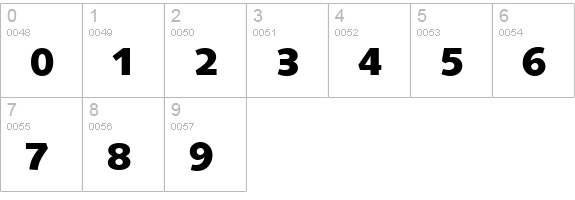
SaxonySerial-Xbold-Regular is the standard, neutral variant in the SaxonySerial typeface family \xE2\x80\x94 well suited to general body text, paragraphs, and standard typographic work.
SaxonySerial-Xbold-Regular is a bold and versatile font that exudes elegance and sophistication. With its clean lines and strong presence, this typeface is perfect for making a bold statement in any design project. Whether used for headlines, logos, or branding materials, SaxonySerial-Xbold-Regular commands attention and leaves a lasting impression. The best part? SaxonySerial-Xbold-Regular is available for free download at FontsMarket.com. This means that you can easily access and use this stunning font in your projects without any cost. Don't miss out on the opportunity to elevate your designs with the timeless beauty of SaxonySerial-Xbold-Regular. Download it today and start creating stunning visuals that stand out from the crowd.